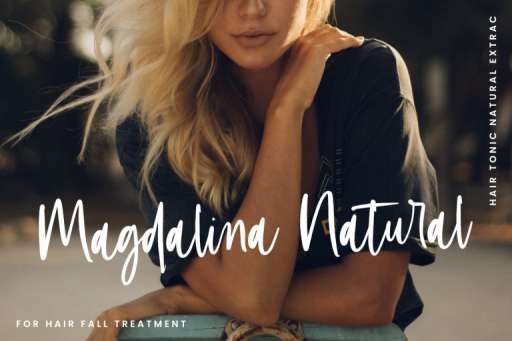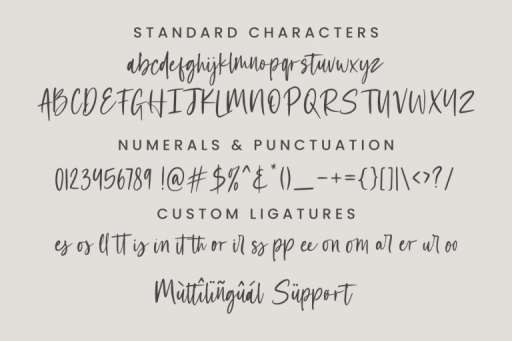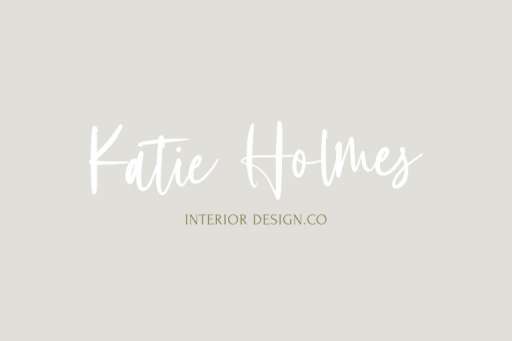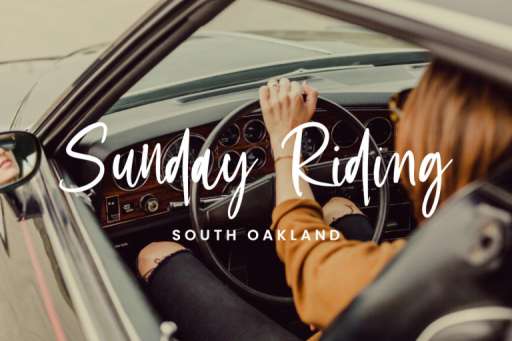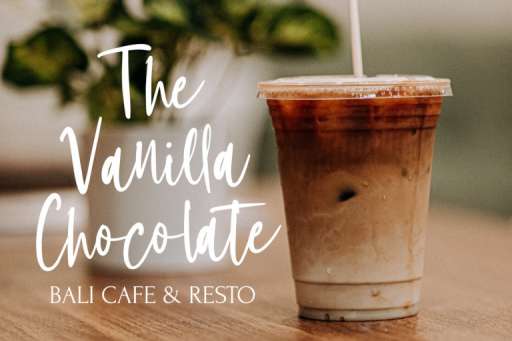
Wednesday Font - Script Business Font From Jimtype Studio
Wednesday Regular
Wednesday Font– Unique Handwritten Font
Wednesday is a handwritten script font with very realistic letterforms and an additional 19 ligatures that look natural like handwriting. Wednesday looks beautiful for logos & branding, quotes, watermark, headers, product packaging, advertisement, cover titles, posters, and more!
Wednesday Features :
• Multilingual
Wednesday Font